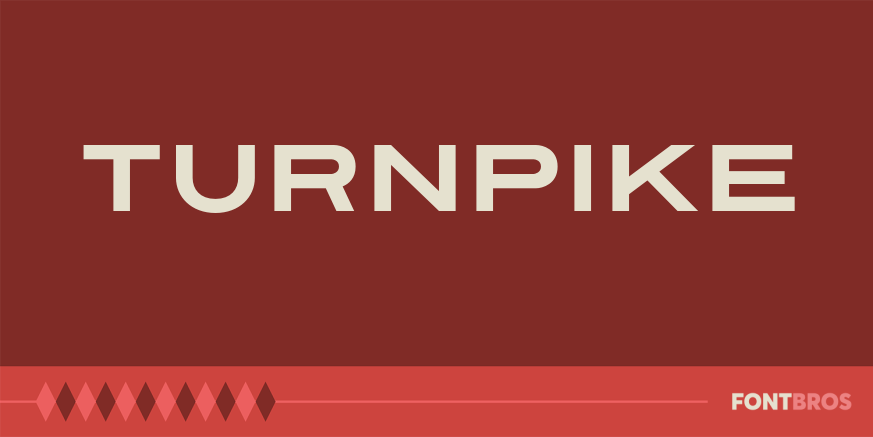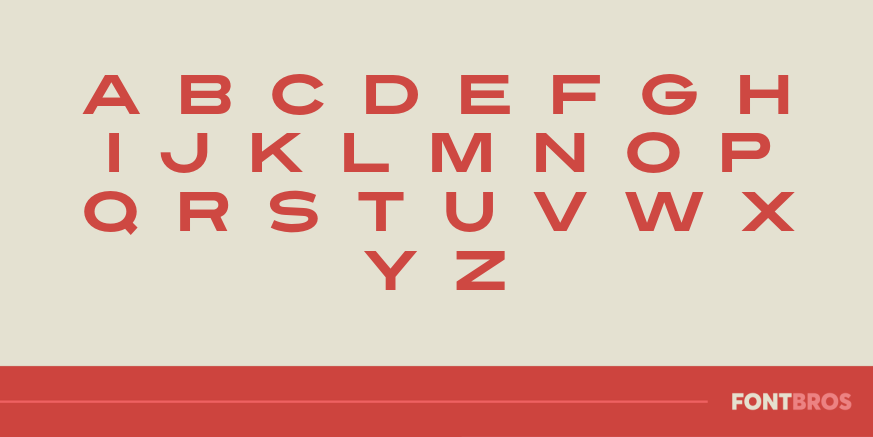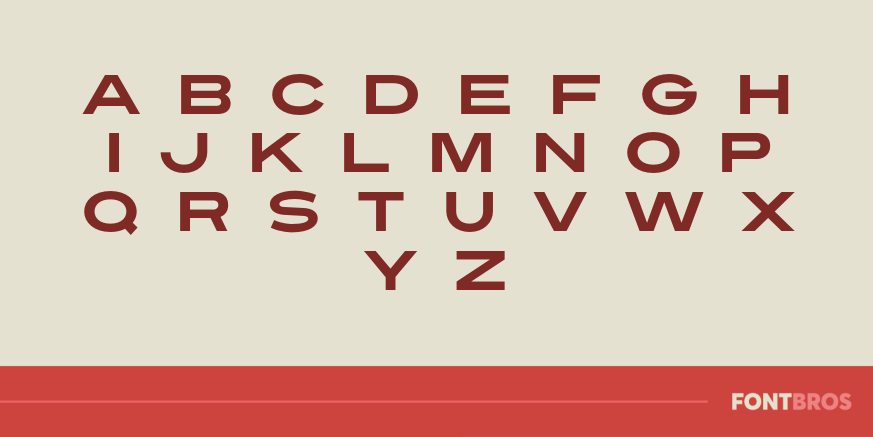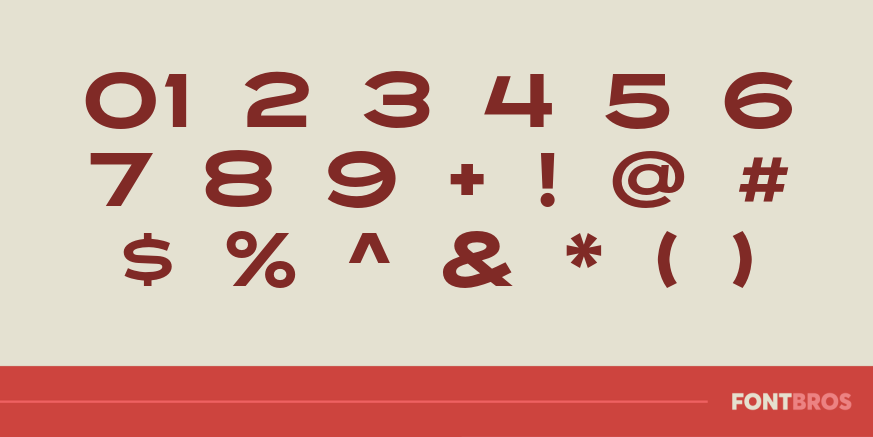
Turnpike
Font Family by Font Diner
Take a trip down the interstate with Turnpike, an extra wide 1960s style modern gothic font inspired by classic dashboard lettering.